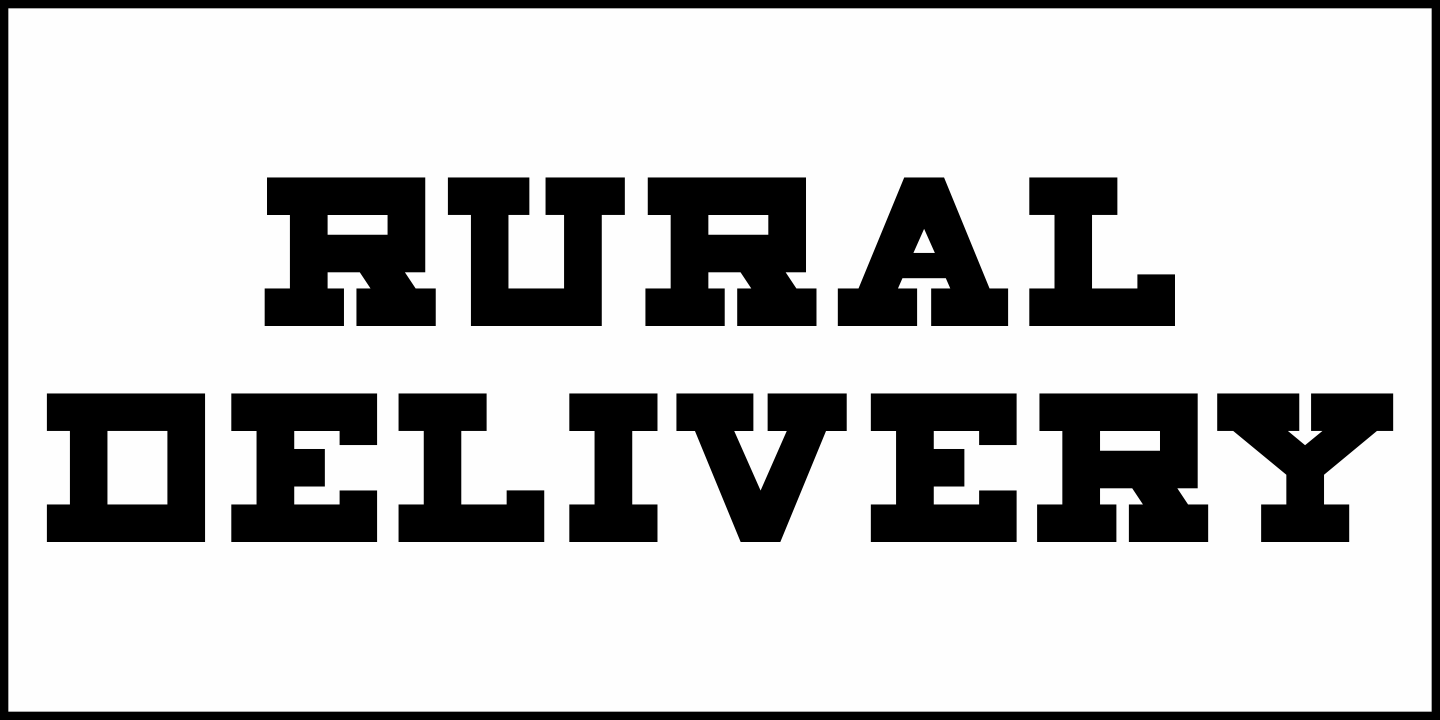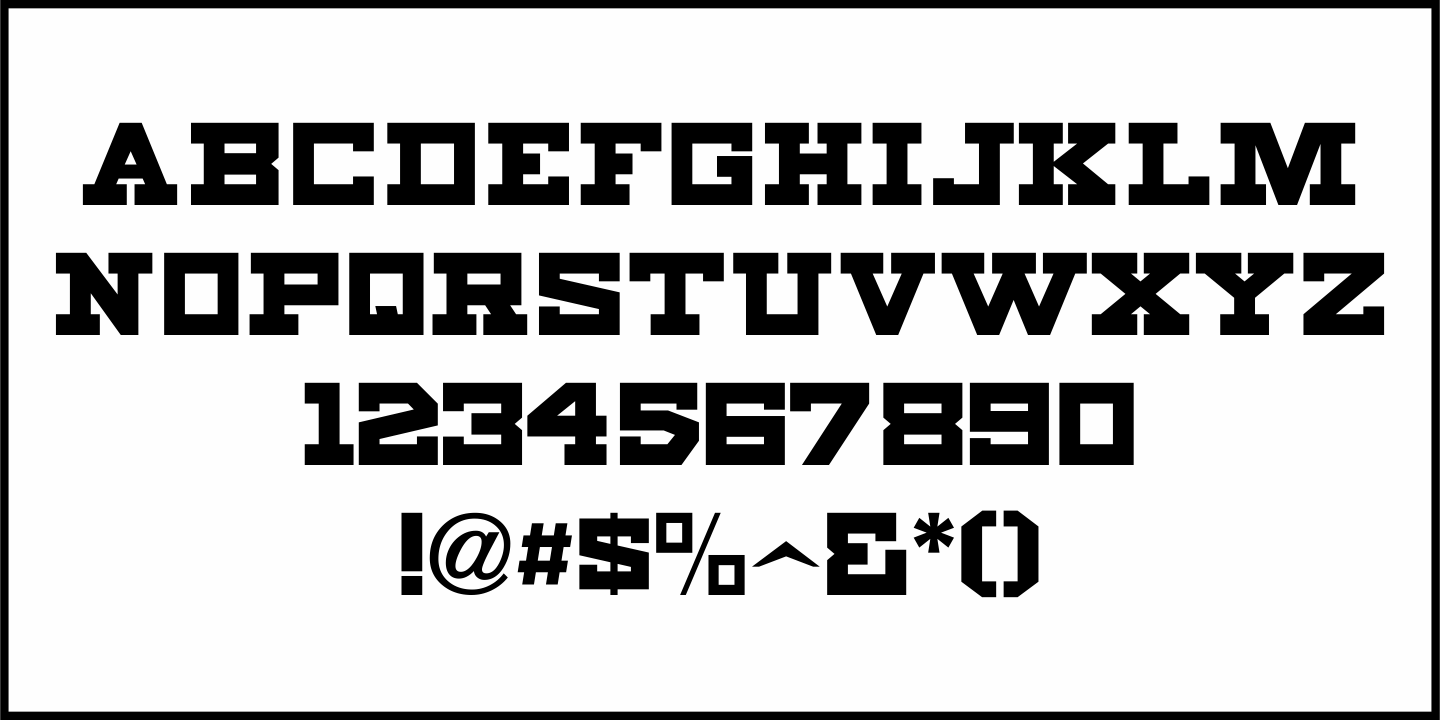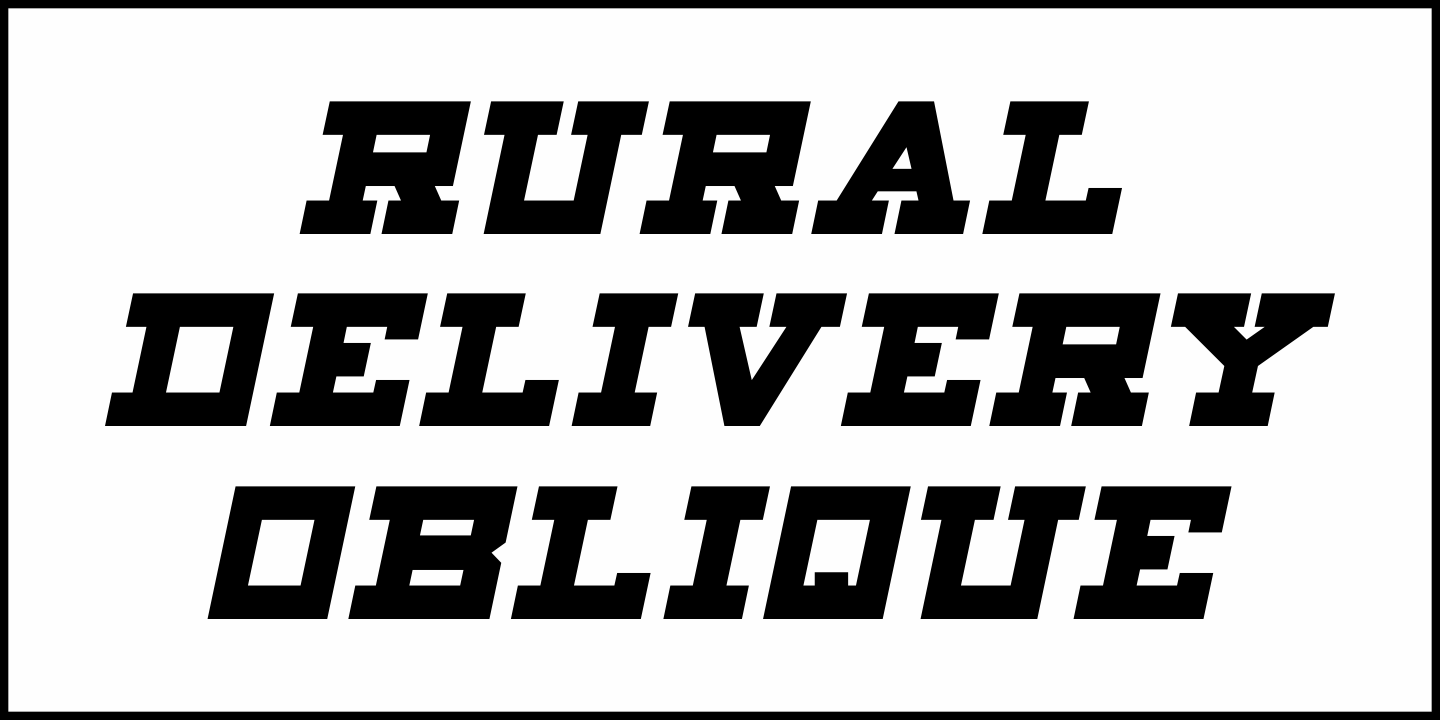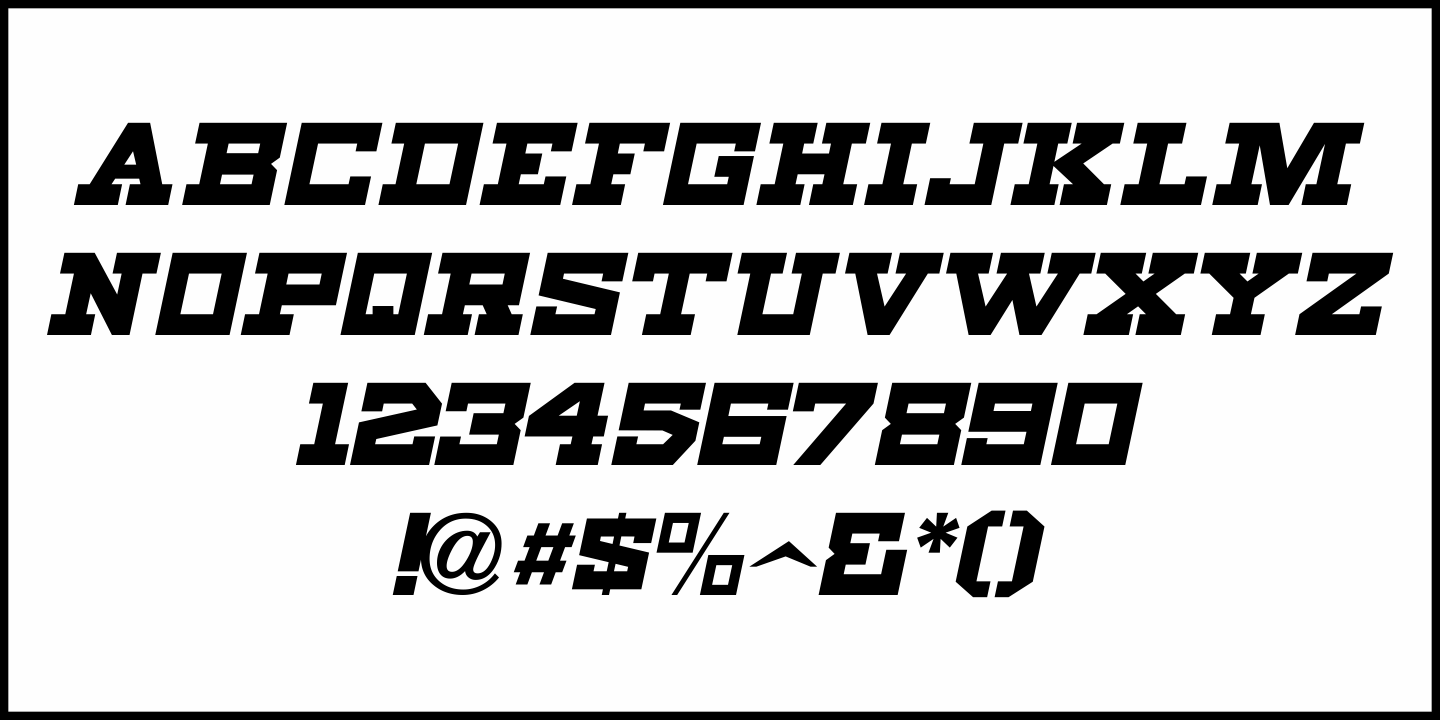
Rural Delivery JNL
An image showing a 1930s-era rural newspaper delivery box for The Washington Post featured the name of the paper in a bold, squared type style with slab serifs. The 'block-like' appearance of the characters can adapt well into design projects involving government, industry or other types of formality.
This nostalgic bit of hand lettering is now available as Rural Delivery JNL, in both regular and oblique versions.